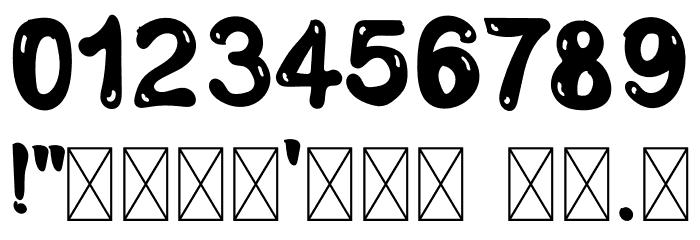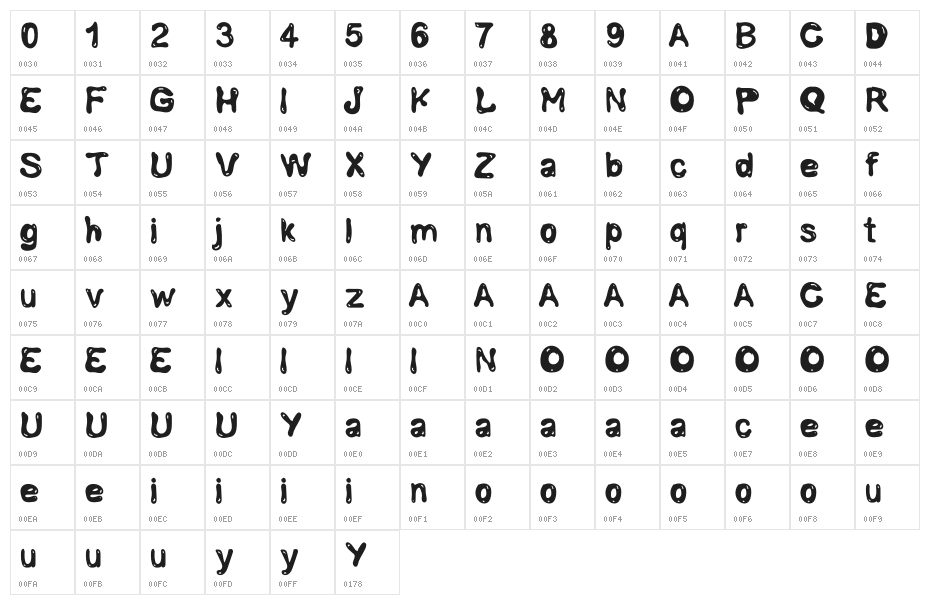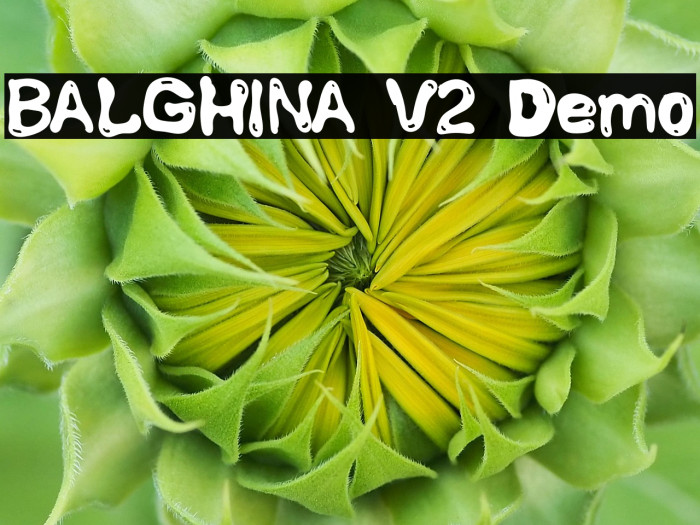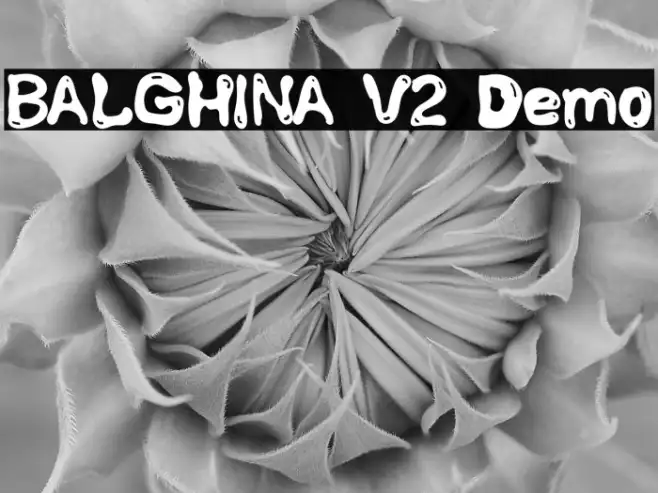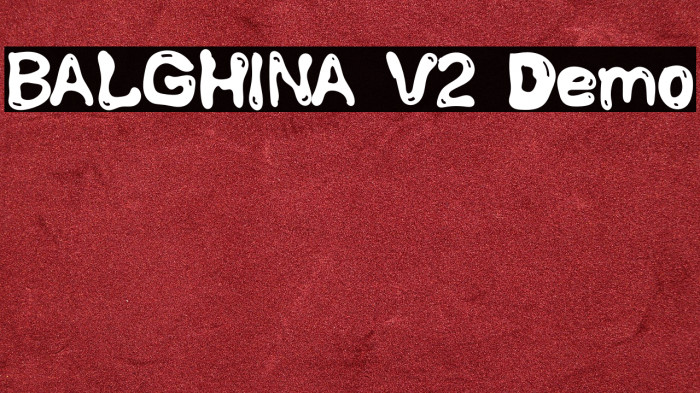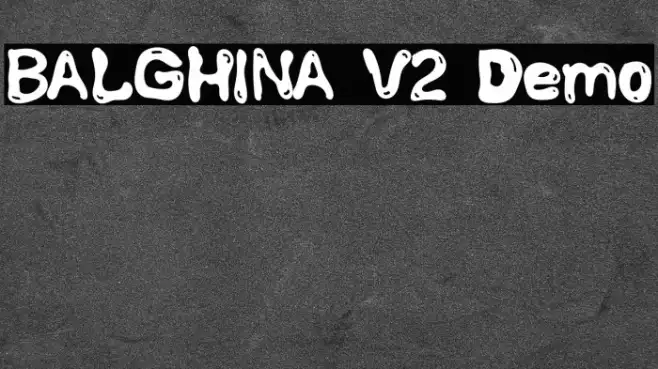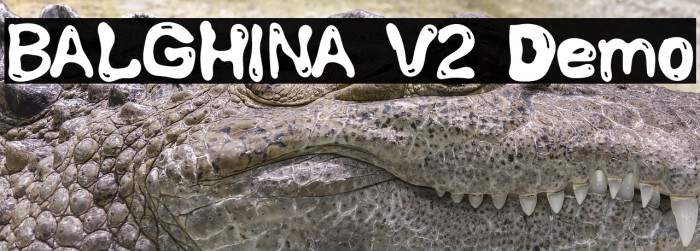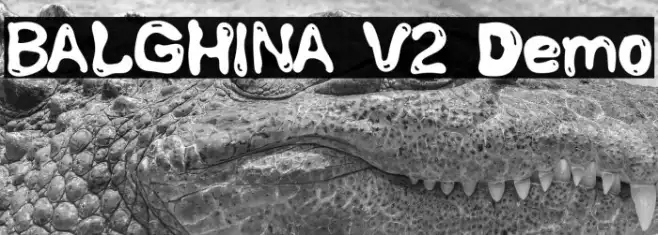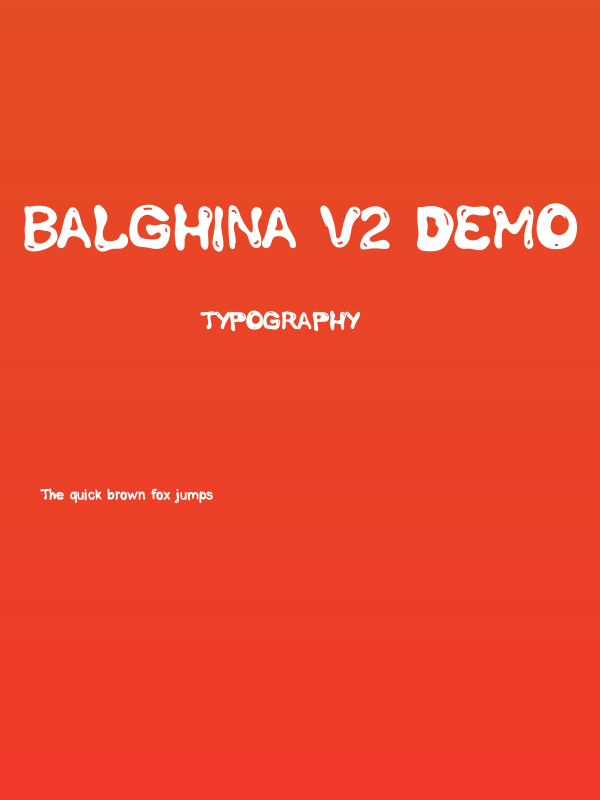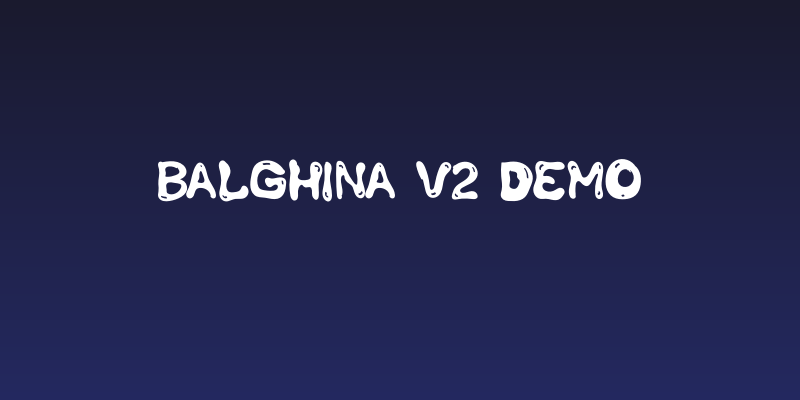
BALGHINA V2 Demo Font
BALGHINA V2 Demo Description
This font features a playful and whimsical design with a unique, organic appearance. The characters are bold and rounded, with irregular, blob-like shapes that give it a distinctive, eye-catching look. The font maintains a consistent thickness throughout, contributing to its bold presence. It has a hand-drawn feel, making it suitable for creative and informal applications. The characters are well-spaced, ensuring readability despite their unconventional forms. This font is ideal for projects that require a fun and lively touch, such as children's books, playful branding, or artistic posters.
| Overall Style | Whimsical, Playful |
| Proposed Projects | Children's books, playful branding, artistic posters, creative invitations. |